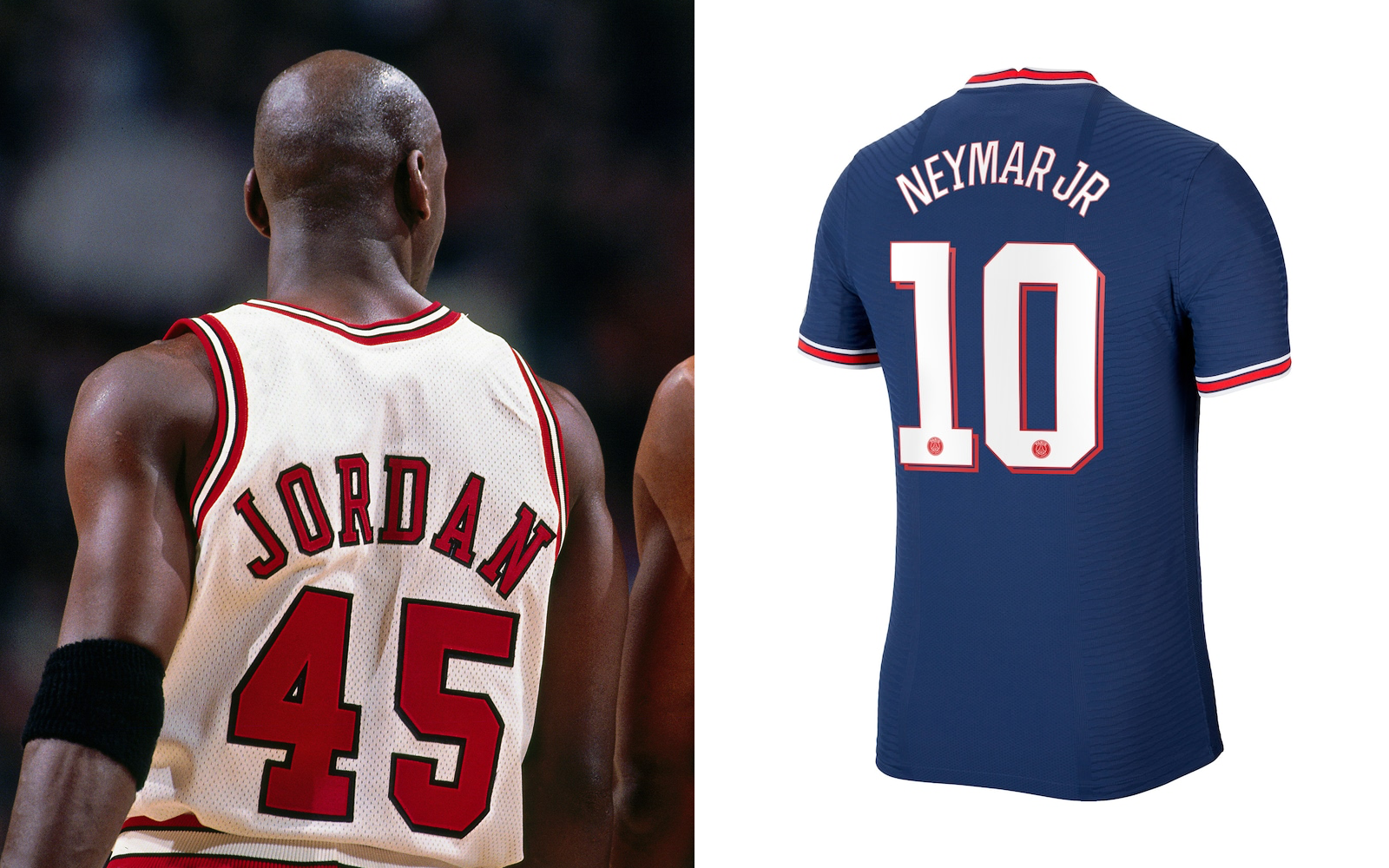The new PSG font is also inspired by Michael Jordan's Chicago Bulls But it will only be used in Champions League matches
After last week's release and Jumpman's debut on the Paris Saint-Germain home shirt, the French club also formalizes the new font that will complete the kit. Just like the design of the shirt, the font will also be a tribute to the Chicago Bulls stylistic legacy of Michael Jordan, Scottie Pippen and Dennis Rodman. A tribute but not the perfect copy. The style remains similar, with a three-dimensional effect that resembles the other fonts used on a kit produced by Jordan brand and which is even closer to the aesthetics of the 6-time NBA champions.
The new PSG font is also inspired by Michael Jordan's Chicago Bulls But it will only be used in Champions League matches
The new typeface of the Parisians recalls that of the Chicago Bulls also in the red border - the only color in common between the Illinois franchise and the Parc de Princess team - which is used to enhance the 3D effect. On the other hand, one of the characteristics that diversify the two fonts is a less squared and decisive shade.
The peculiarity of the font will be that, despite being on a home jersey, it will be used only and exclusively in Champions League matches. After providing teams with only 3 styles to choose from, last July Ligue 1 made official the single font for the jerseys that will be used during the transalpine championship. So MJ's homage to Chicago Bulls will only be on magical European nights - starting next September.